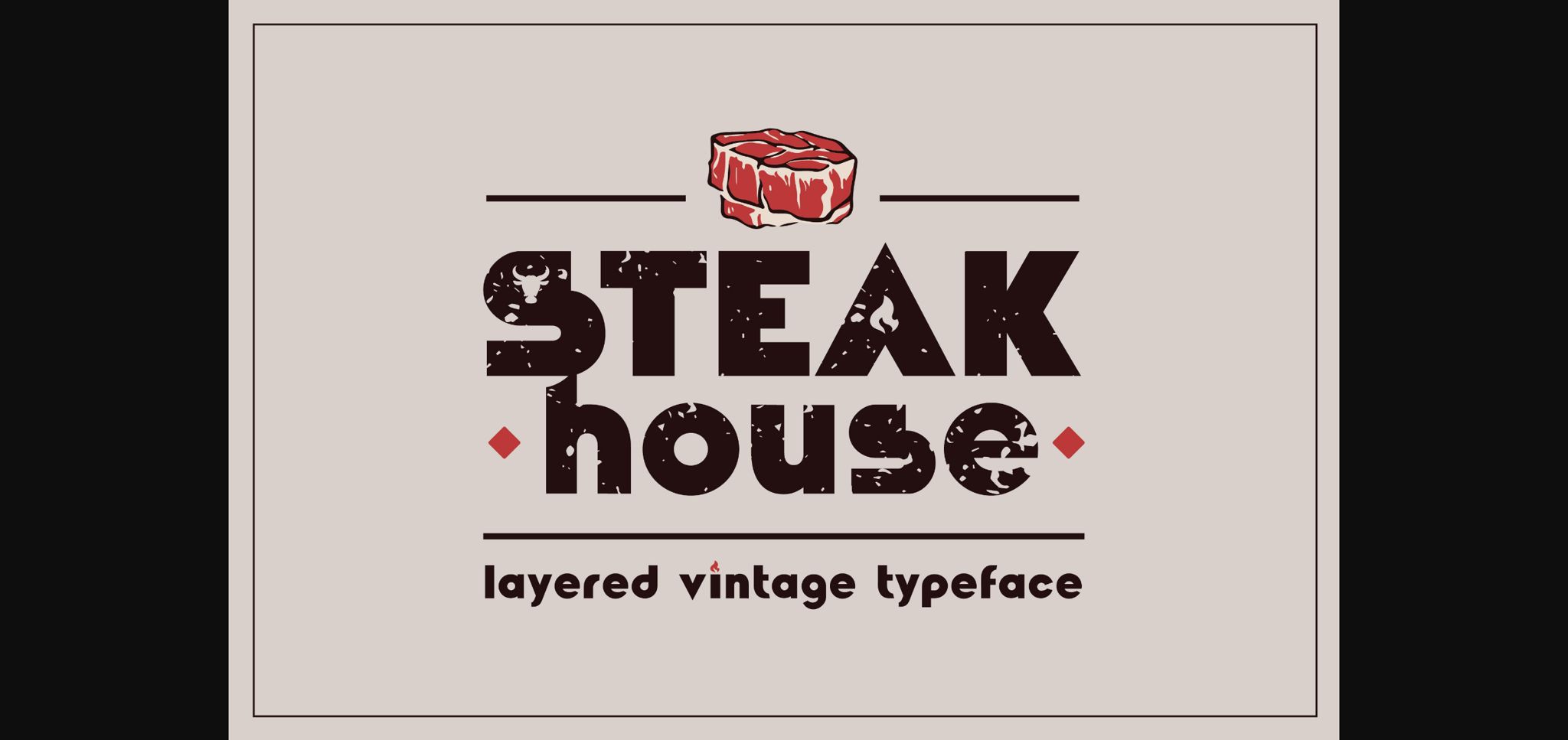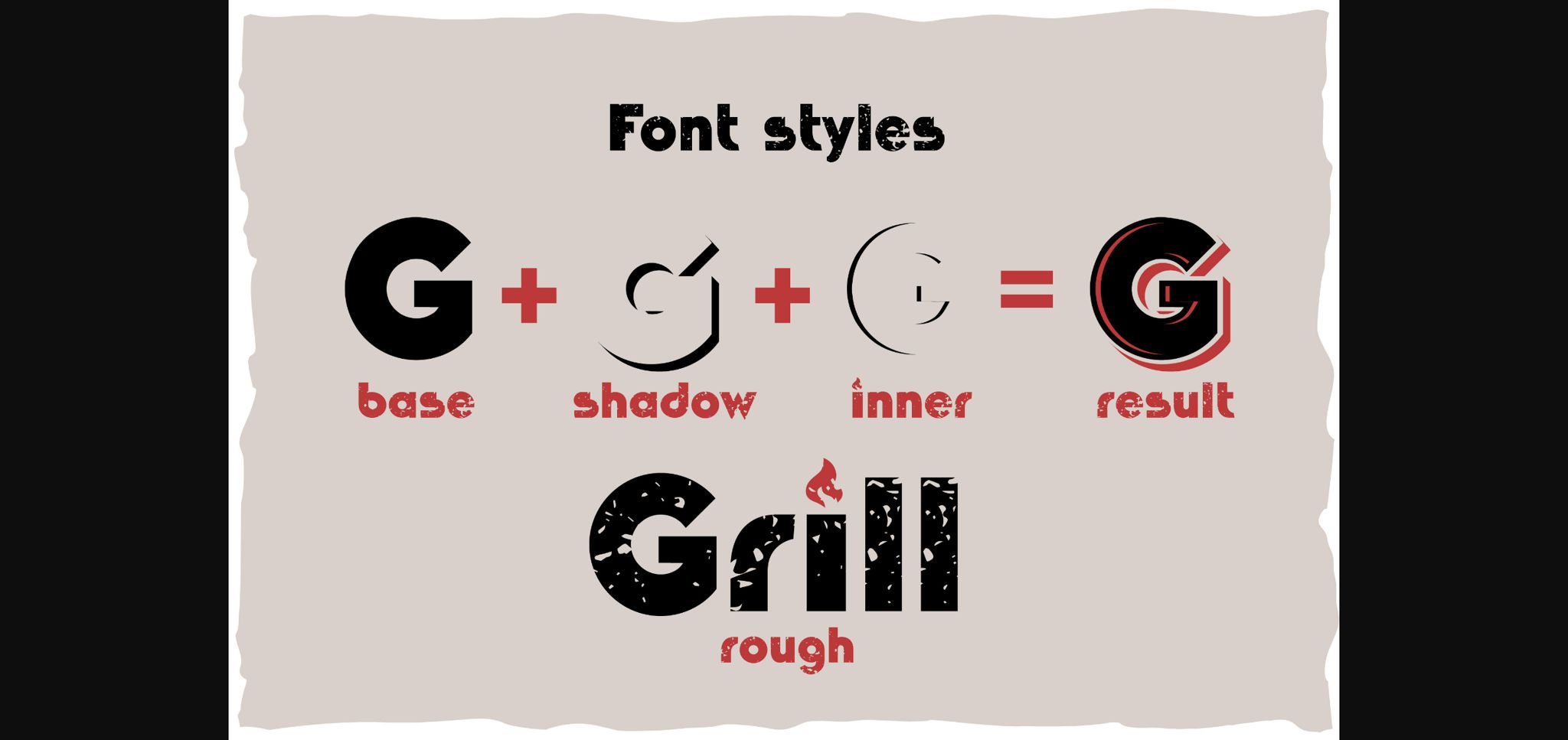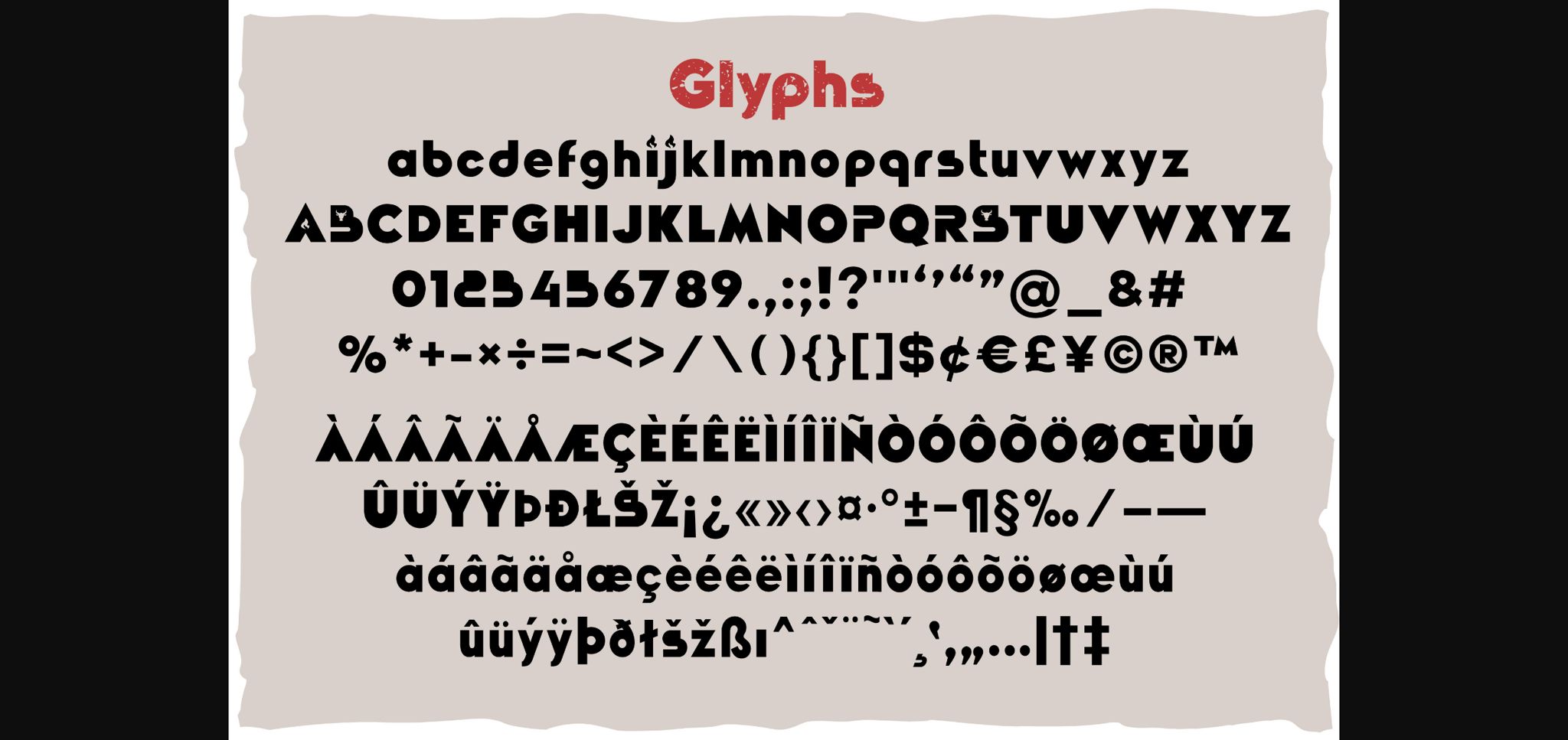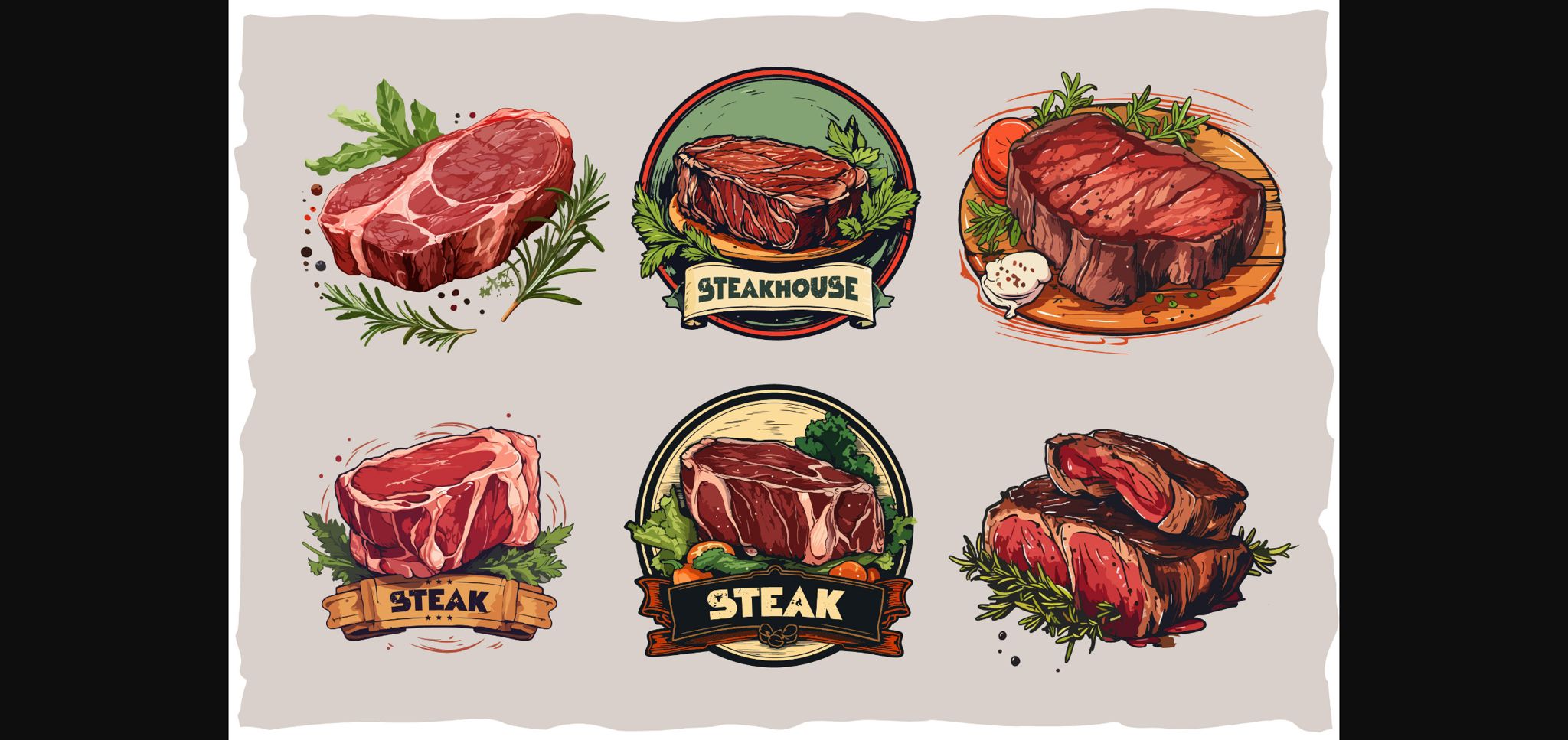
HomeSans Serif FontsSteakhouse Font Sans Serif Fonts Steakhouse Font FacebookTwitterPinterestWhatsApp 1 of 6 ... Steakhouse Font Poster 2... Steakhouse Font Poster 3... Steakhouse Font Poster 4... Steakhouse Font Poster 5... Steakhouse Font Poster 6... About Steakhouse Font Steakhouse is a multi-layered vintage font designed for logos and headers, grilling-related products, steaks, and more. The font contains 4 writing styles such as: base, shadow, inner shadow and rough. DOWNLOAD NOW 127 0 People also explored Flowerose Font Mini Heart Font Summer Paradise Font Green Juice Font Rheago Font Rainbow Font Gandes Marifessa Font Male Burnt Orange Bella Canvas 3001 Winter Font Rainbow Cloud Uptown Berlin Font TagsSteakhouse Font Previous articleSmooze Smooches FontNext articleSwigert Sweetheart Font LEAVE A REPLY Cancel reply Comment: Please enter your comment! Name:* Please enter your name here Email:* You have entered an incorrect email address! Please enter your email address here Website: Save my name, email, and website in this browser for the next time I comment. Unlock Endless Creativity with the FREE September Clipart Huge Bundle (Valued at $700!) Personal Use Free Glosery Personal Use Free Read more Dolce Vita Personal Use Free Read more Sunshine Tropical Font Personal Use Free Read more 1313 Mockingbird Lane Personal Use Free Read more BLOG Using Fonts in Digital Marketing: Tips to Strengthen Your Brand Identity In the realm of digital marketing, every visual element plays a crucial role in shaping a brand's identity, and fonts are no exception. The... To increase your work productivity, choose the most readable fonts. Where to Buy American Fonts Online in 2024 Transform Your Website: Elevate Your Typography with 7 Best Web Font Generators